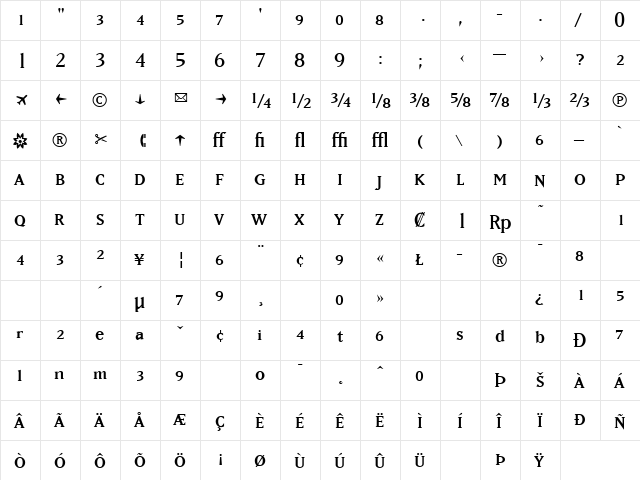
MatrixRegularFractions Regular
Design Context for MatrixRegularFractions Typeface
MatrixRegularFractions offers clean, dependable letterforms without strong stylistic allegiance, making it a practical choice for designers who need flexibility.
Pro Tip: Use MatrixRegularFractions in both headline and body roles to test its range before committing to a single application.